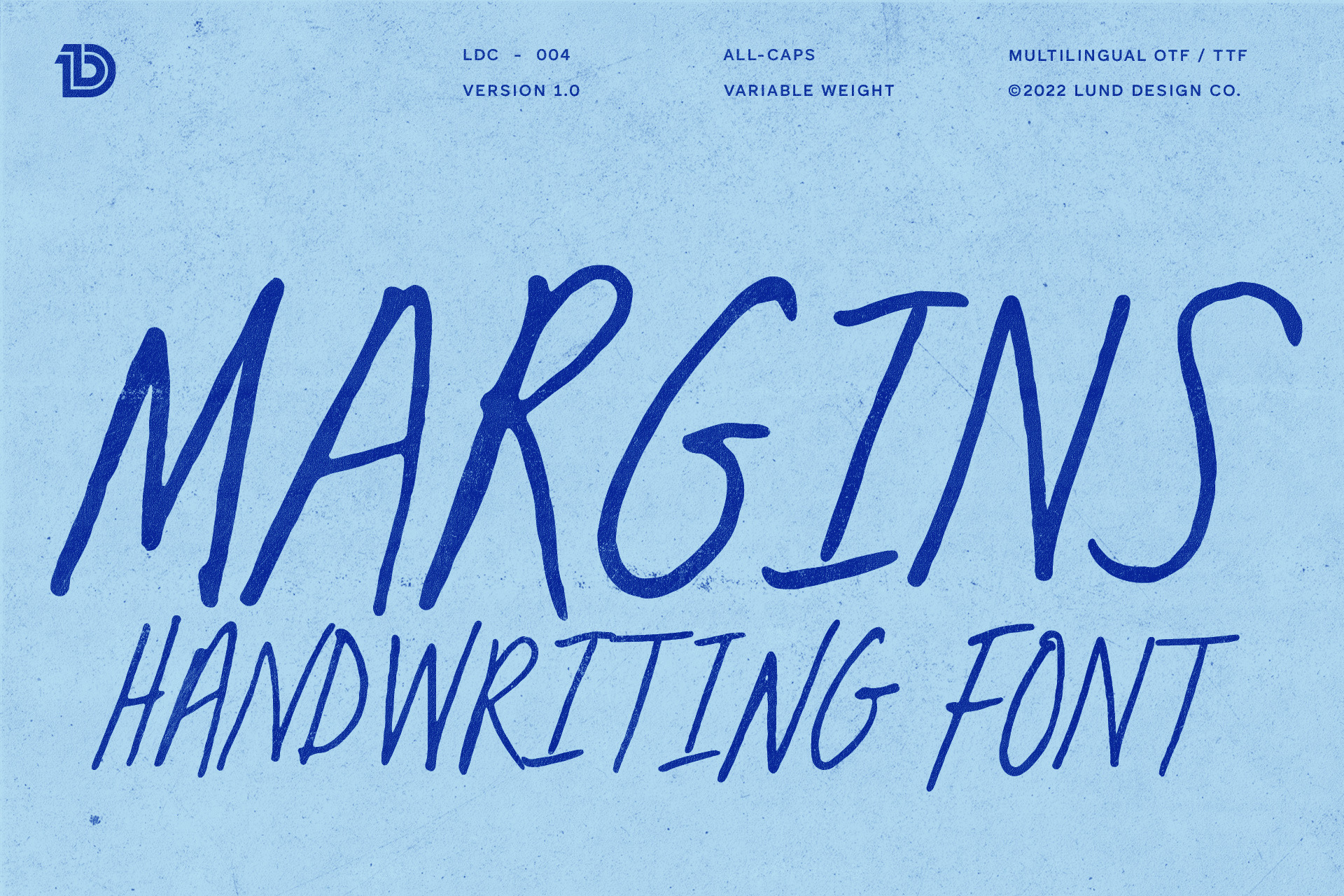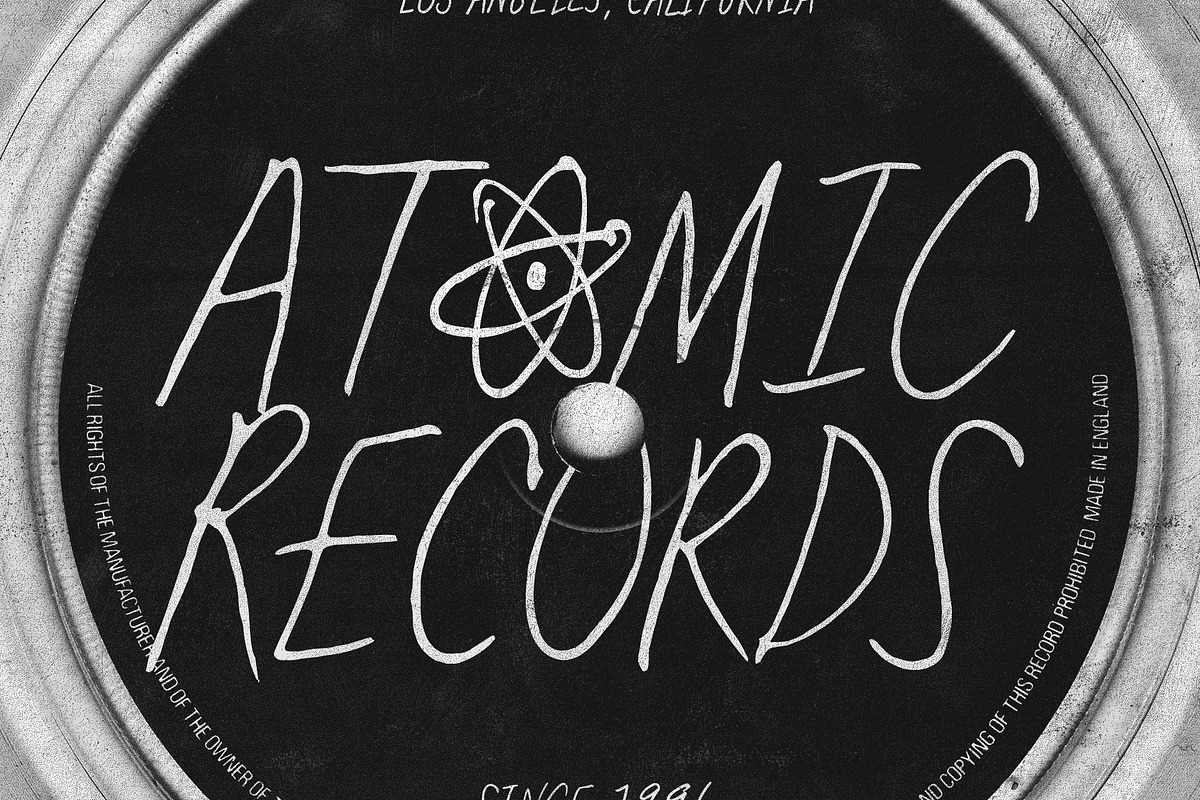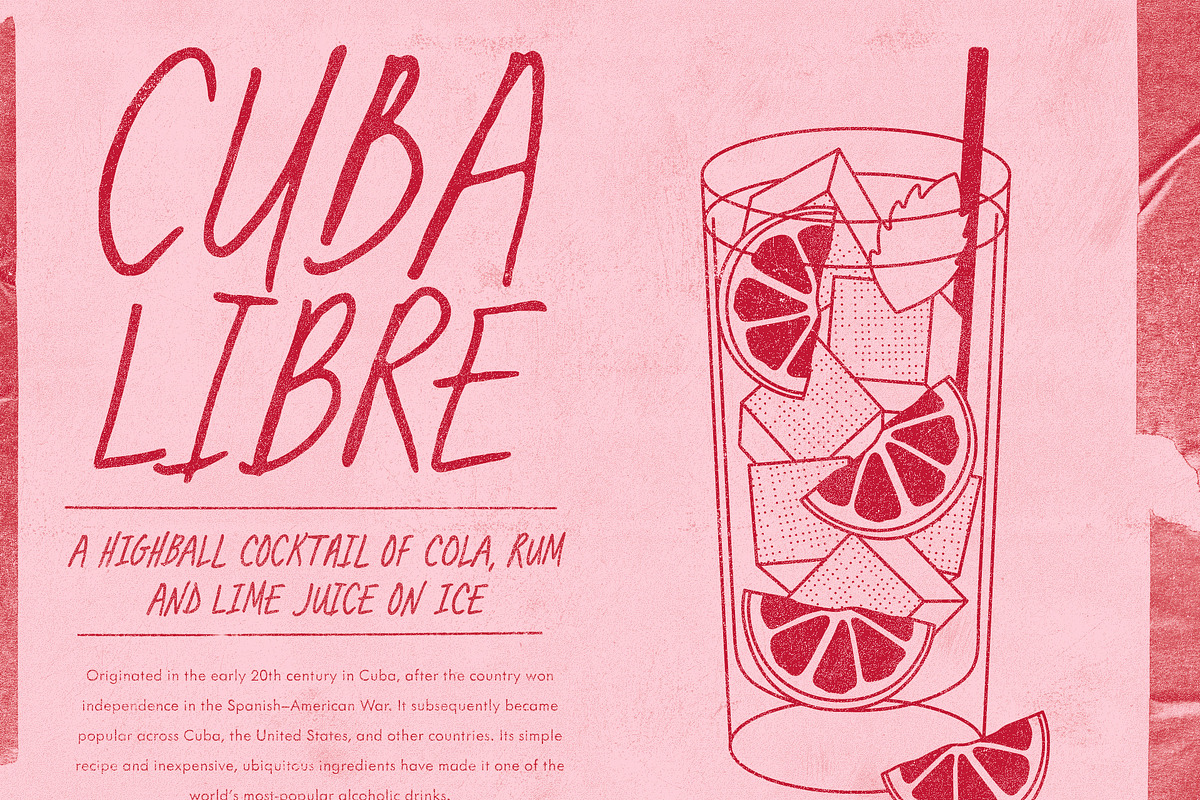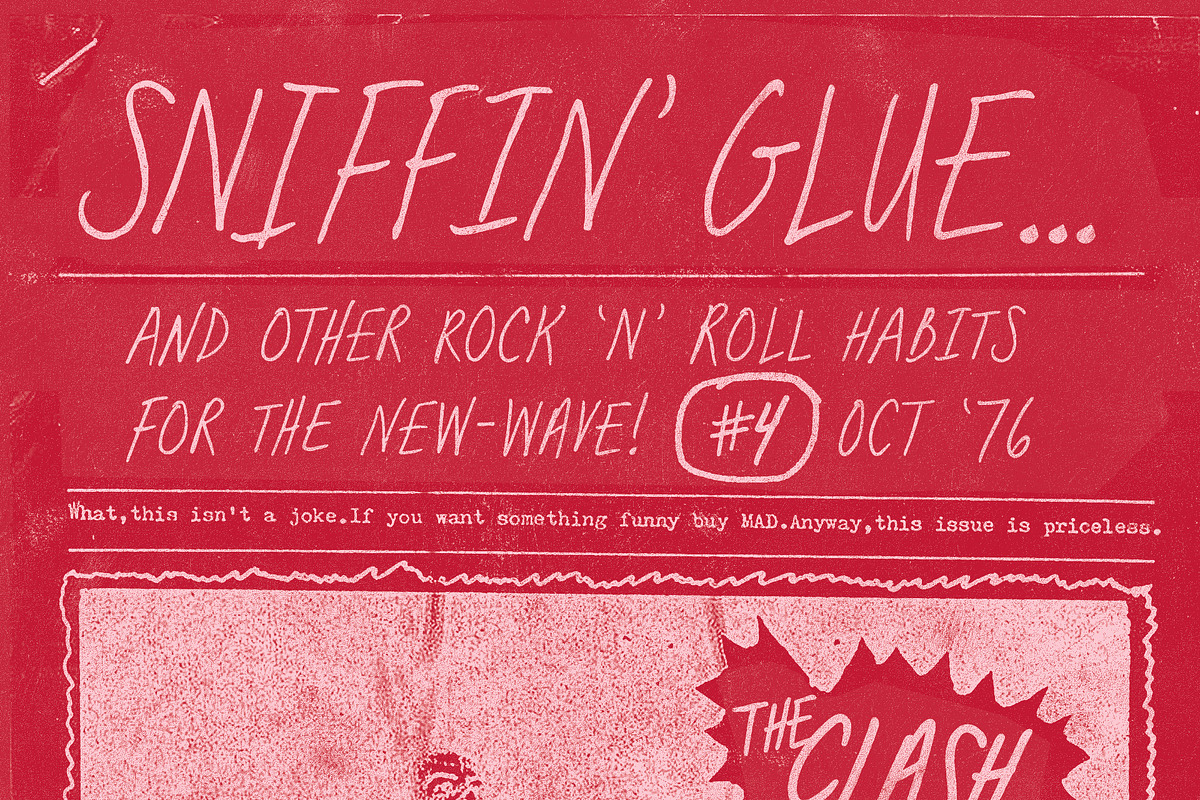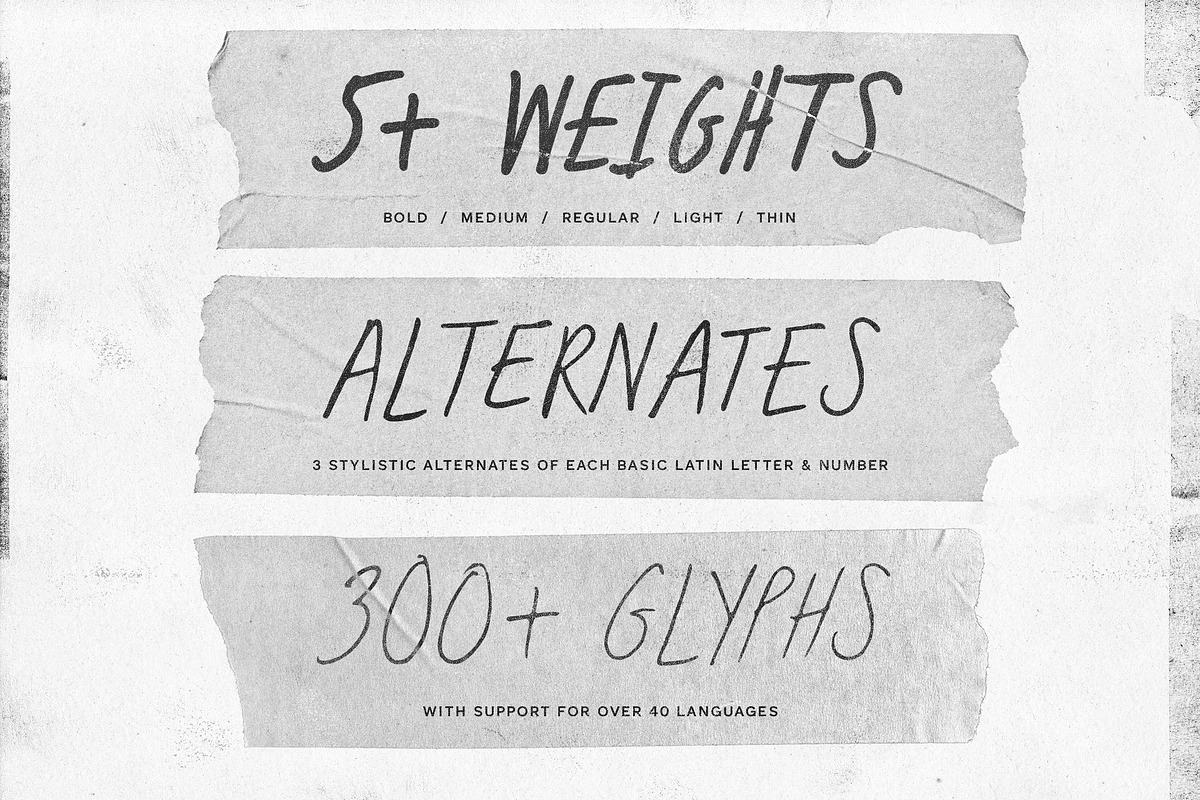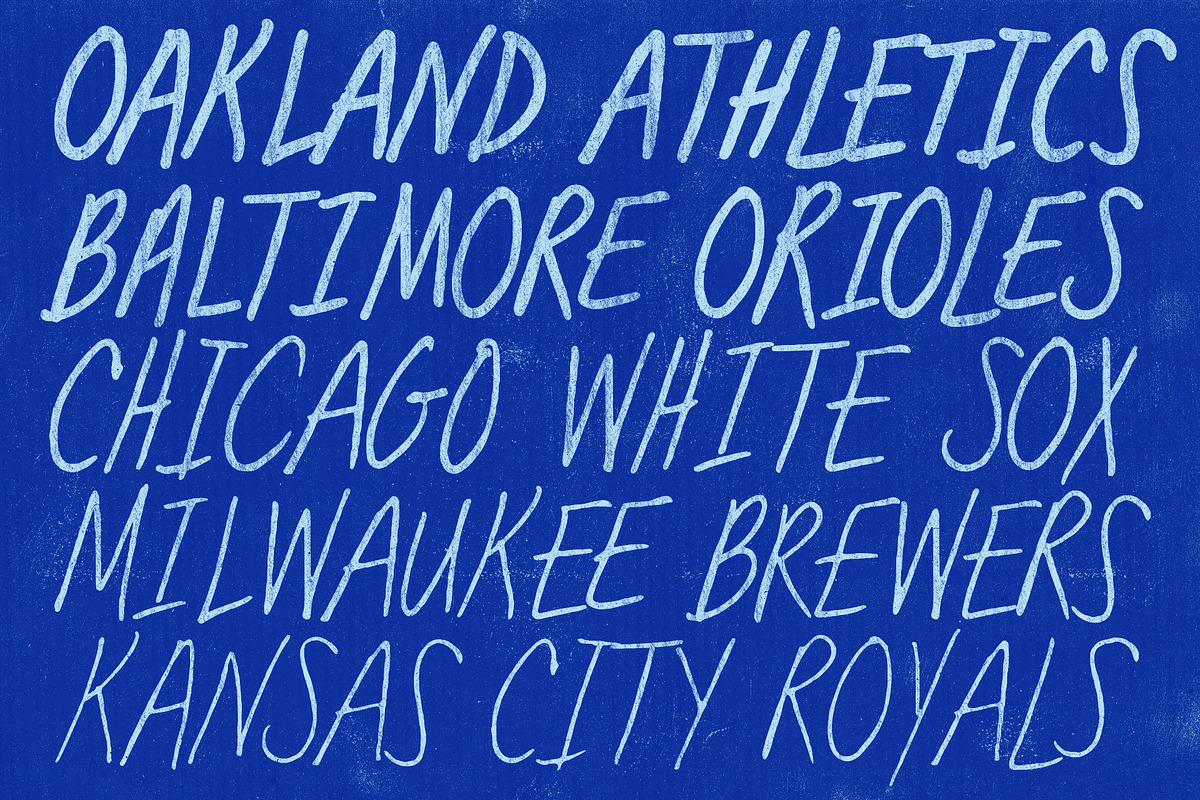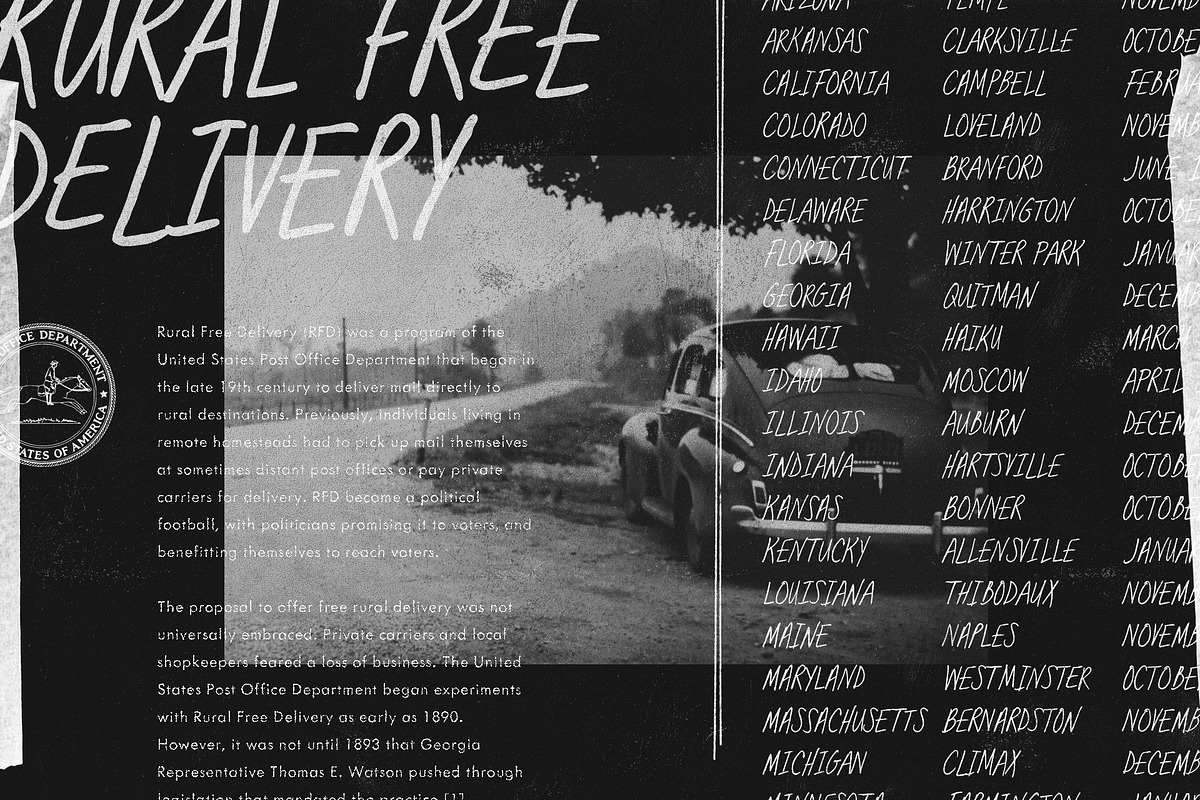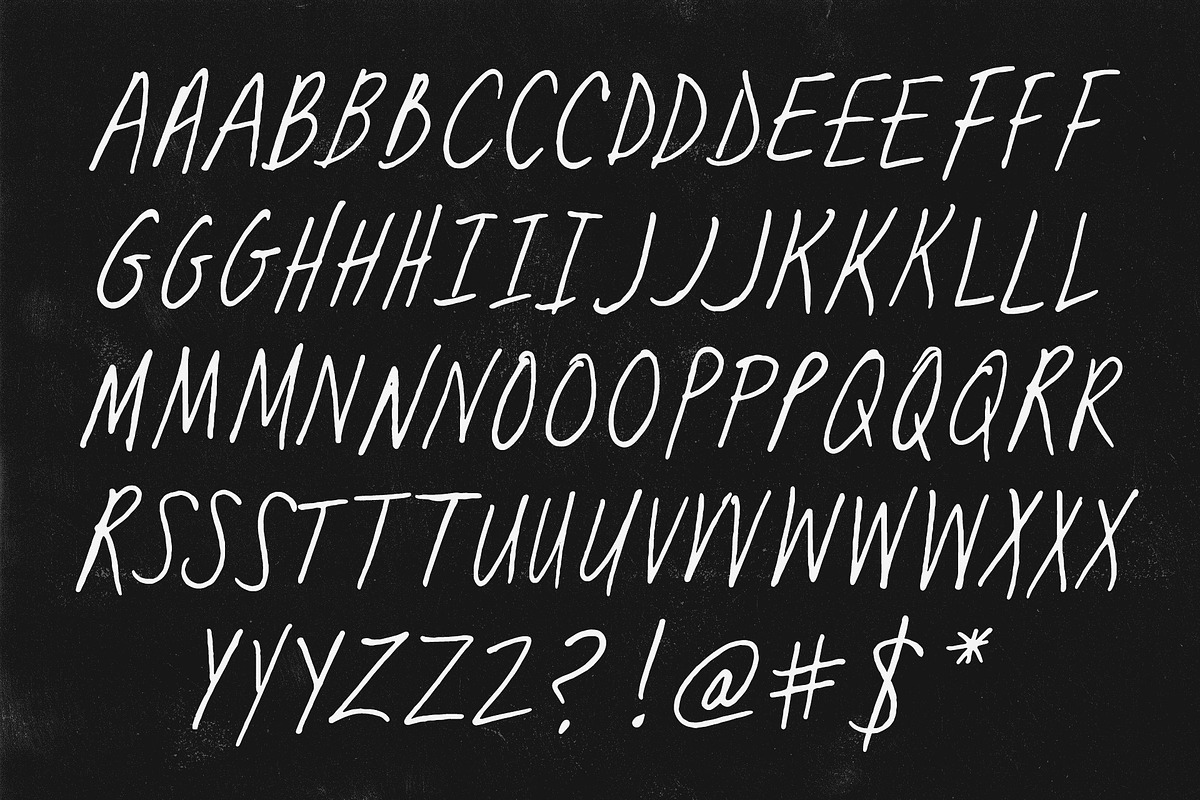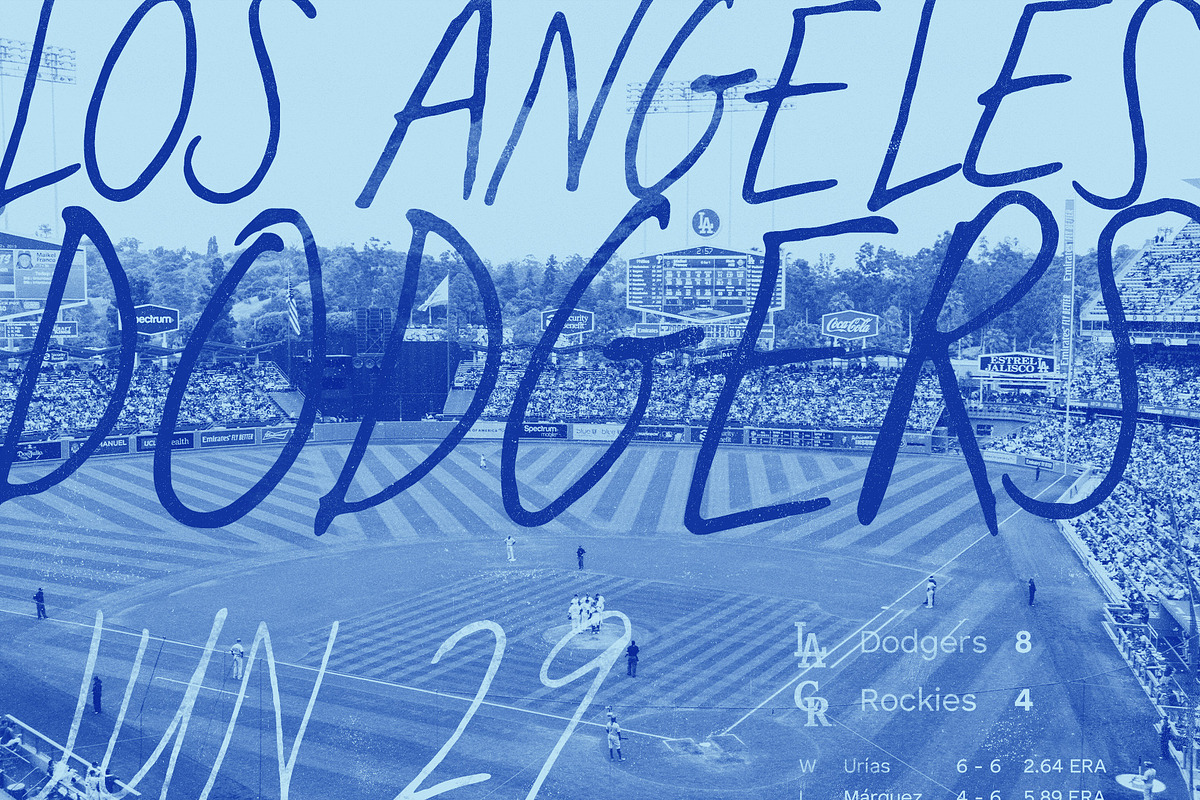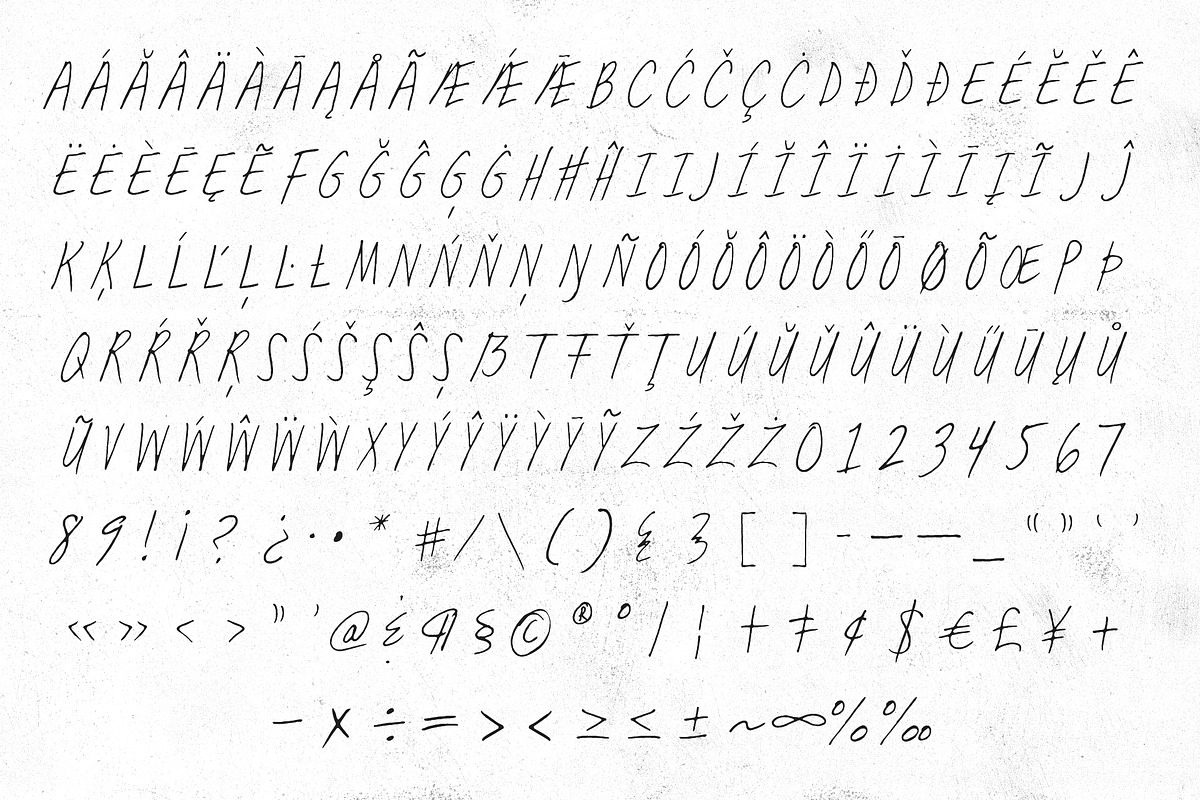
MARGINS Handwritten Font
Margins is a hand-drawn scribbly display typeface perfect for headlines, handwritten quotes, or adding a textural touch to any project. It uses contextual alternates to feel organic, helping your text look hand-made and is available in variable weights to look great at any size. It includes accents and multilingual characters.